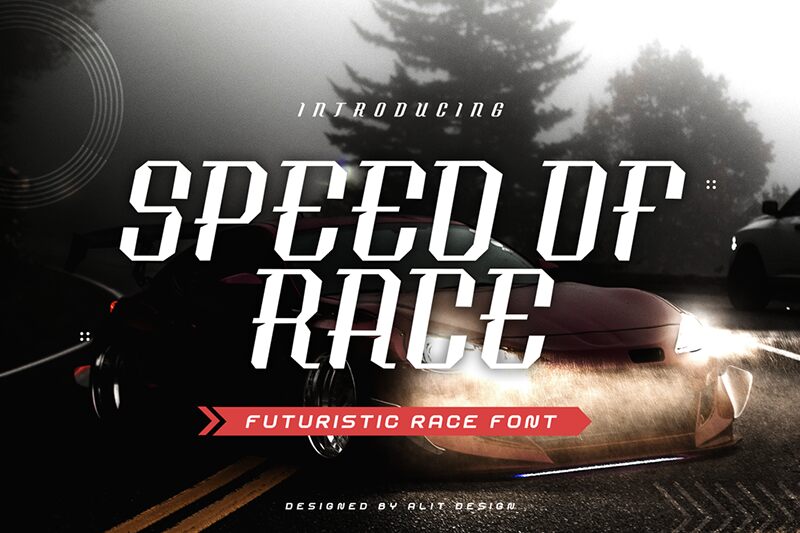
Speed of Rice Regular
Speed of Rice, designed by Alit Design, is a techno-inspired display font that boasts a semi-light weight and semi-condensed width. Its futuristic aesthetic makes it perfect for projects that require a modern twist, such as tech startups, video games, and sci-fi films. With its clean lines and sleek design, Speed of Rice is also suitable for branding and advertising campaigns that want to convey innovation and progressiveness. Whether you're designing a website or creating digital content, this semi-bold font is sure to make an impact. Try it out today!